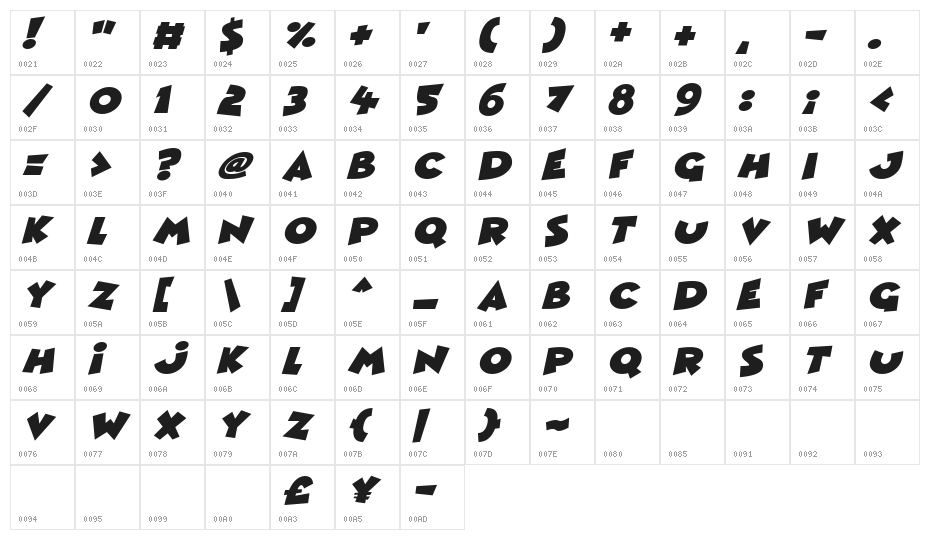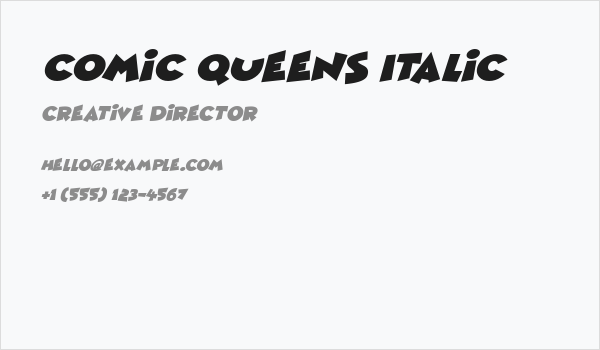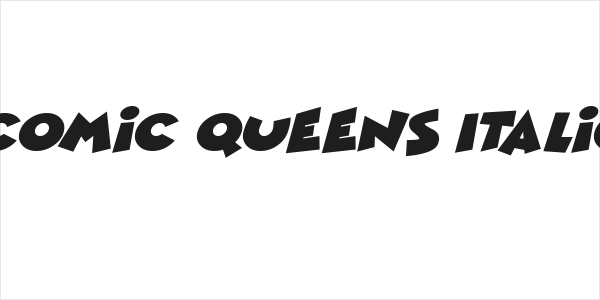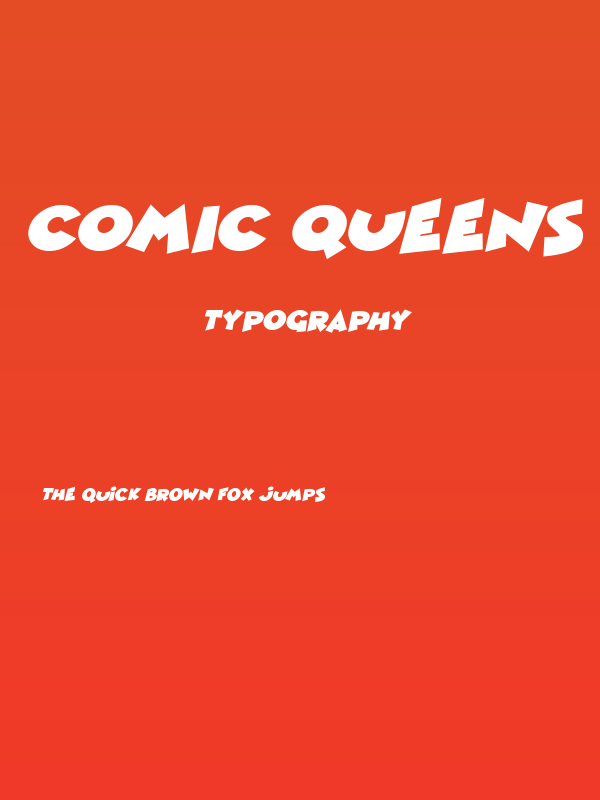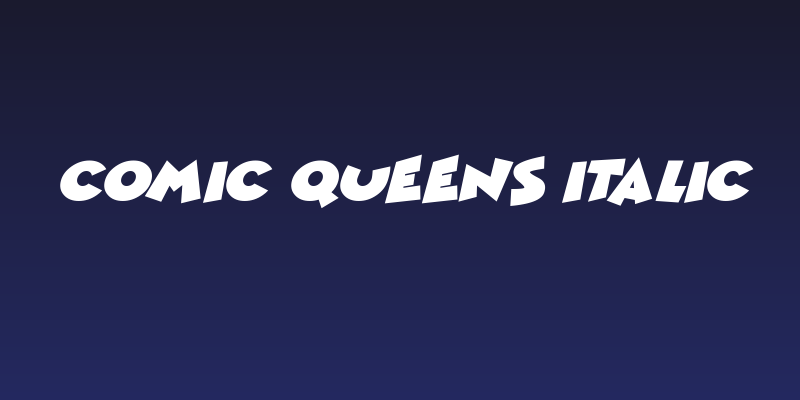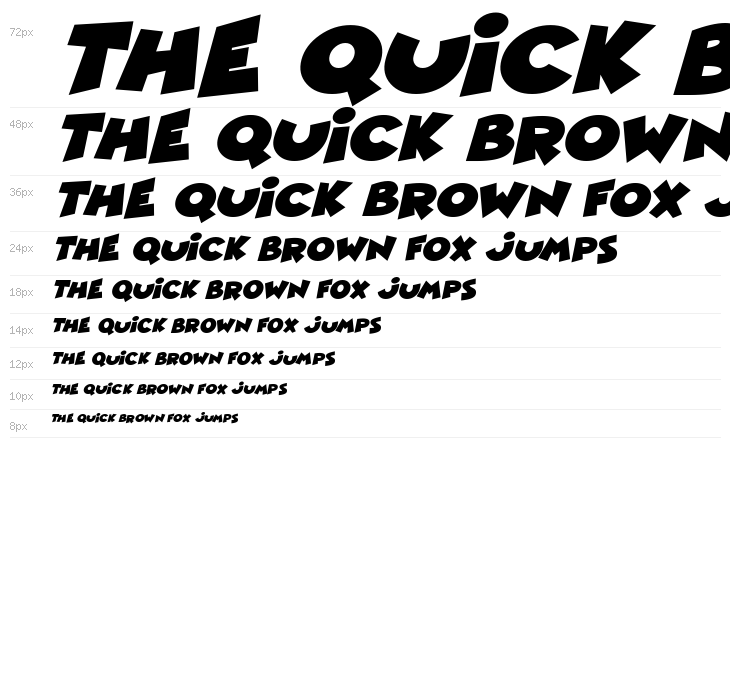
Comic Queens Italic Font
Comic Queens Italic Description
This font features a bold, dynamic style with a playful and energetic vibe. The characters are slightly italicized, giving a sense of movement and excitement. The strokes are thick and consistent, providing a strong visual impact. The letters have a cartoonish, exaggerated form, making them ideal for attention-grabbing designs. The overall appearance is informal and fun, suitable for creative and lighthearted projects. The numbers and special characters maintain the same lively aesthetic, ensuring a cohesive look across all text elements.
| Overall Style | Playful, Energetic, Cartoonish |
| Proposed Projects | Ideal for comic books, children's books, playful branding, and posters. |